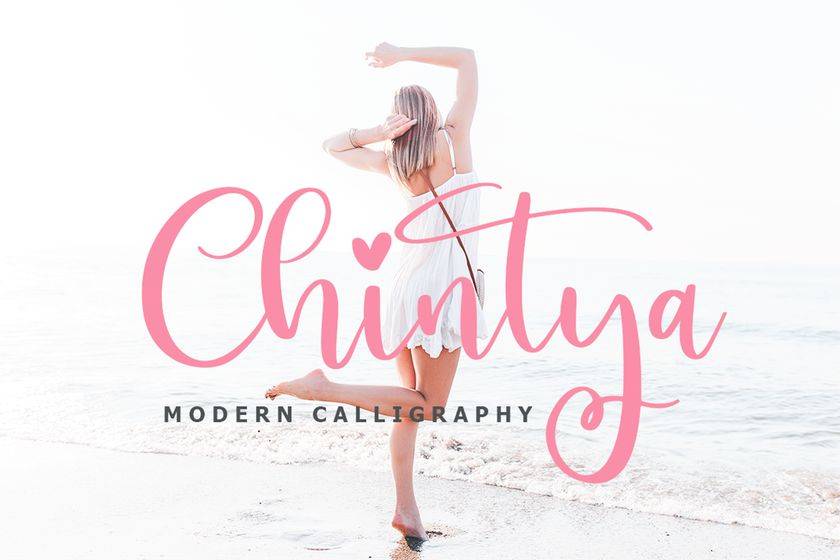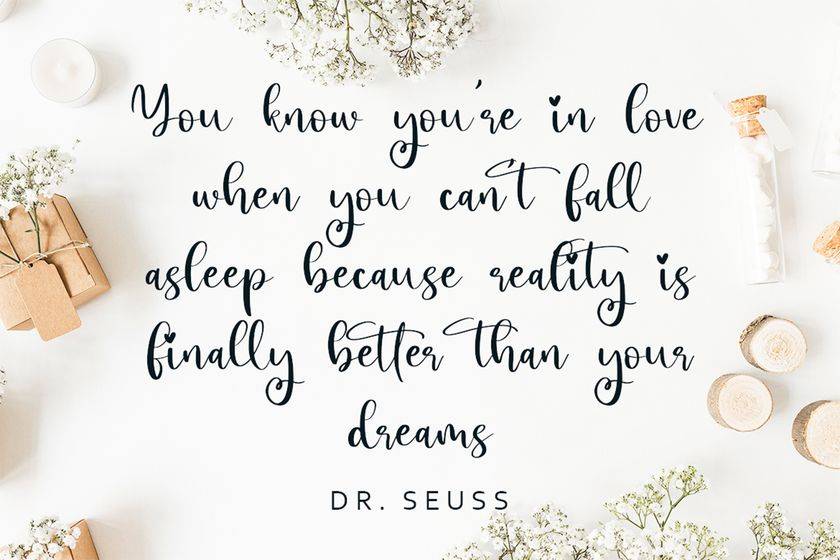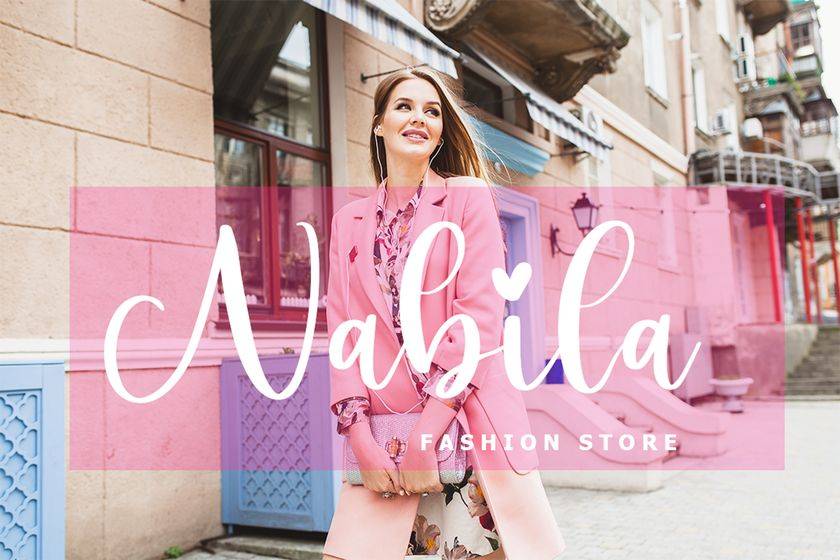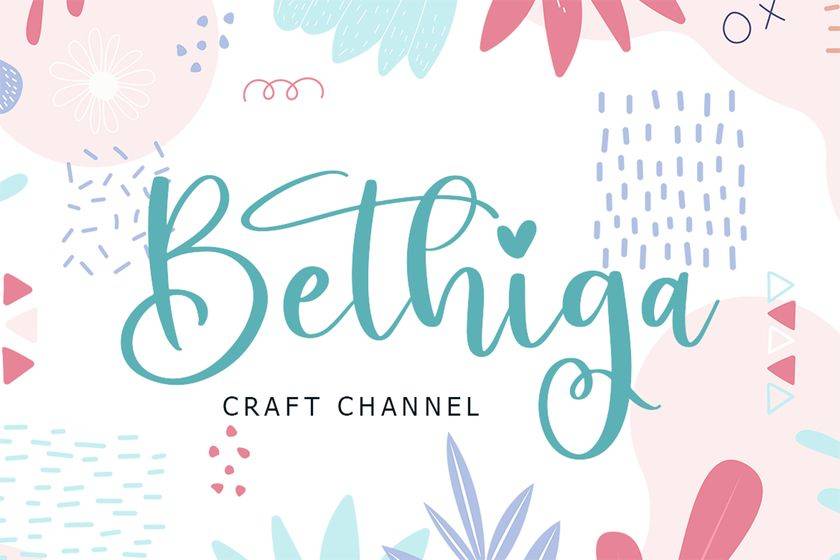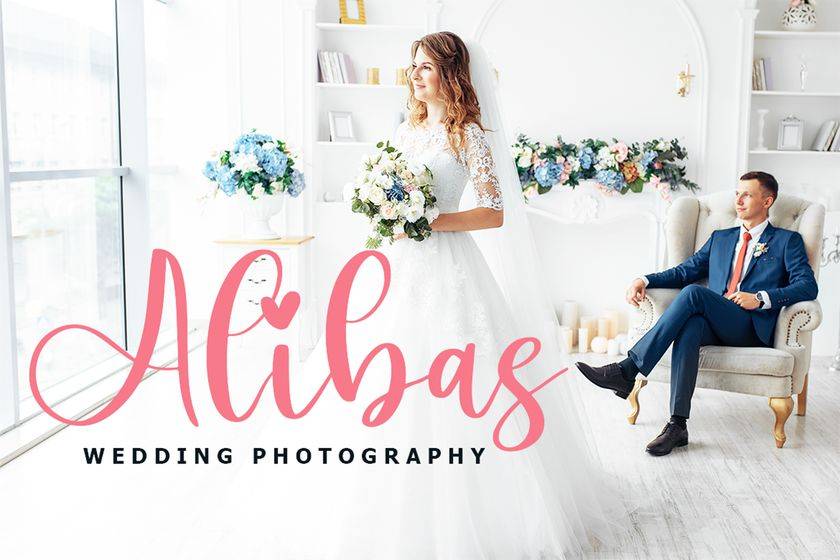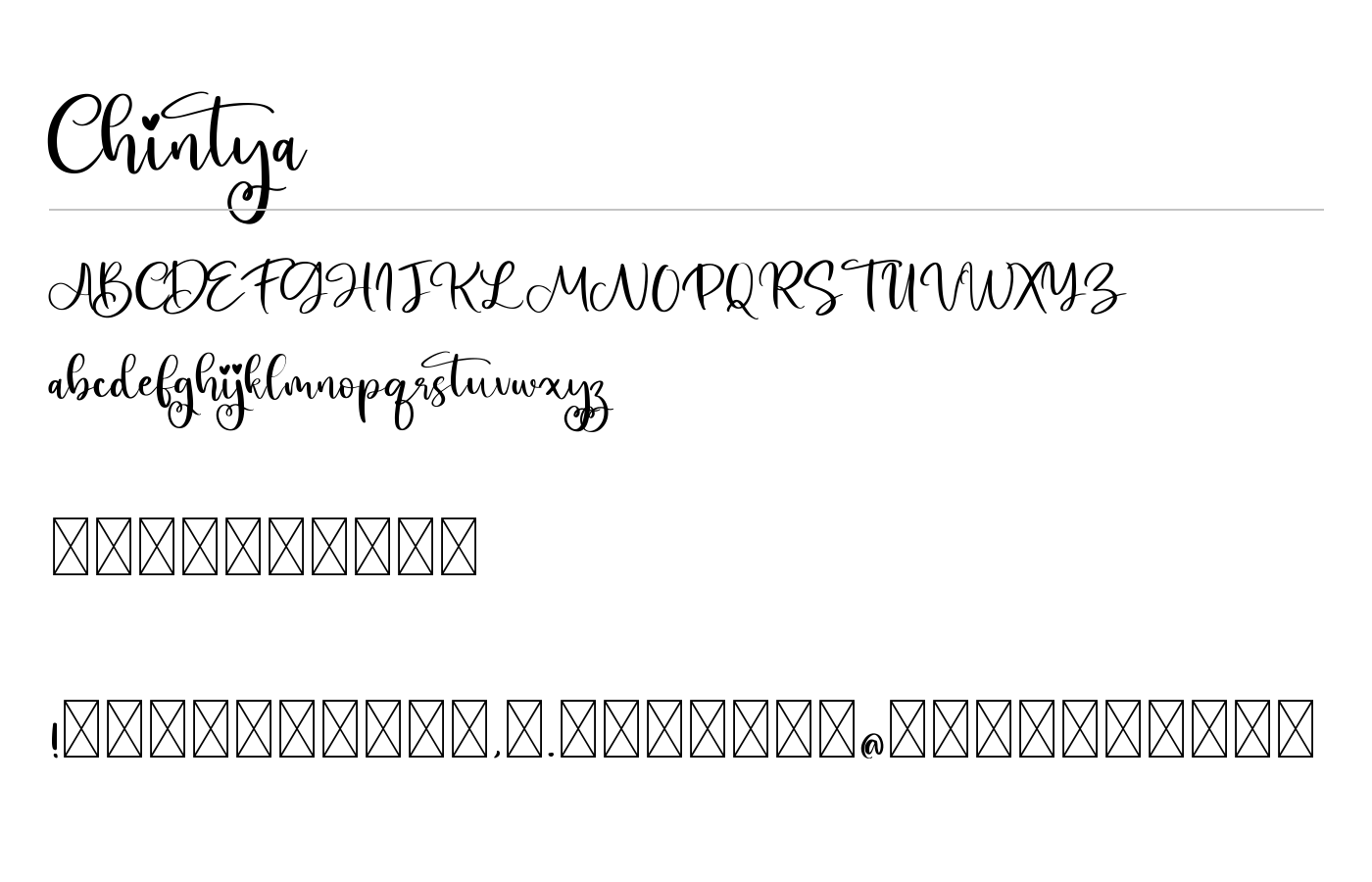
Chintya is a playful and elegant script font with a flowing, handwritten style and charming flourish details like hearts and loops. Its light stroke weight and delicate curves make it perfect for feminine branding, invitations, and creative projects that want to convey warmth and personality. This font works best in display use, adding a personal and stylish touch to logos, greeting cards, and social media designs.
Chintya Font